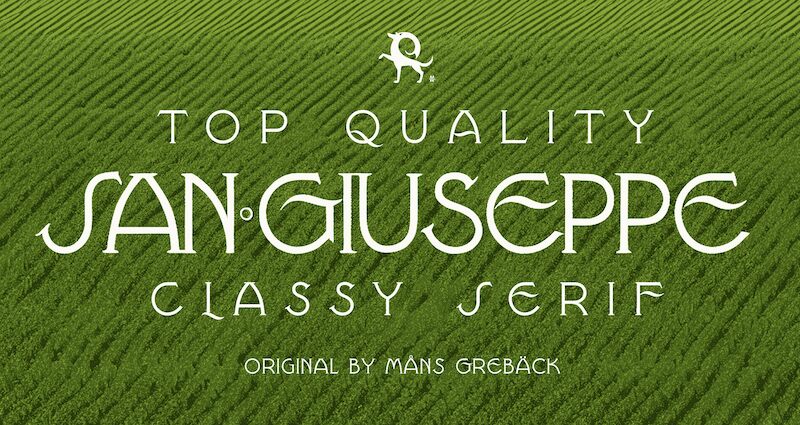
San Giuseppe is a stunning display font designed by Mans Greback. The retro serif style of this font exudes a timeless charm that makes it perfect for projects that require a touch of nostalgia. With its light weight and semi-expanded width, San Giuseppe is an ideal choice for creating attention-grabbing headlines, posters, and other eye-catching designs. Whether you're working on a vintage-inspired branding project, a classic book cover design, or an elegant invitation suite, San Giuseppe's unique retro serif style will add just the right amount of character to your work.
Inspired by the romantic, ornate style of the Victorian era and the bold, captivating geometry of Art Deco, San Giuseppe is the perfect blend of neo-classic and vintage aesthetics. With its fine, intricate serifs and delicate, artistic letterforms, this font is a testament to the beauty and craftsmanship of yesteryear, created for a modern setting.